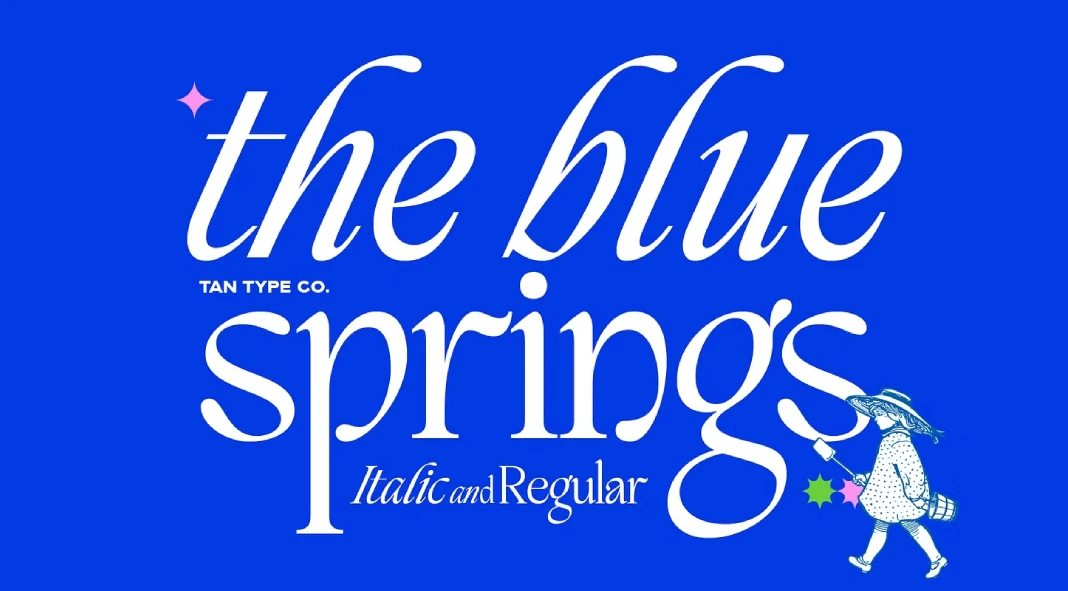
Why TAN Blue Springs is the Font You Need to Achieve Timeless Elegance
Do you want a typeface that blends classic charm with a modern edge effortlessly? If you’re searching for that perfect typeface, let’s talk about TAN Blue Springs, a font that’s been making waves in the design world. What makes it so special? It’s more than just a pretty face; it’s a versatile tool that can elevate your projects and capture attention. Get ready to explore why this font could be your next go-to choice.
What Makes TAN Blue Springs Stand Out?
This isn’t just another font; it’s a statement. Created by TanType, it masterfully balances tradition with contemporary design sensibilities. This blend makes it incredibly adaptable for a wide range of applications. So, what exactly sets this font apart from the crowd?
• Classic Yet Contemporary: It possesses a timeless appeal reminiscent of classic serifs but with subtle modern tweaks. These prevent it from feeling dated.
• Versatility is Key: With both regular and italic styles, the typeface offers flexibility for various design needs.
• Elegant Character: While refined, it avoids being sterile or bland. Instead, the font showcases a unique personality that adds character to any design.
TAN Blue Springs Font by TanType
Exploring the Design Nuances of Blue Springs
Let’s get into the specifics. TAN Blue Springs boasts carefully crafted letterforms, paying attention to detail in every curve and line. This commitment to quality is evident in its overall aesthetic.
• The Serif Details: The serifs aren’t overly dramatic but add a touch of sophistication without feeling stuffy.
• The Italic Slant: The italic version isn’t just a slanted version of the regular. It showcases unique characteristics that perfectly complement the upright style.
• Readability is Paramount: Even with its distinct personality, the font prioritizes readability. This is especially important for body text.
The Applications of TAN Blue Springs: Where Does it Shine?
The versatility of TAN Blue Springs means that you can use it in various design projects. But where does it truly excel?
• Branding: Its elegant yet approachable aesthetic makes it perfect for creating brand identities that convey sophistication and reliability.
• Editorial Design: Whether you’re designing a magazine, book, or website, this display font adds a touch of class to any layout.
• Web Design: This font looks amazing on the web too. It is easy to read and adds character to your online designs, making it a versatile choice for website typography.
• Print Materials: Business cards, brochures, invitations—the typeface elevates any printed piece with its sophisticated charm.
Why Should You Choose This Font?
In a sea of fonts, why should you specifically consider TAN Blue Springs? Because it strikes a unique balance.
• Differentiation: It allows your designs to stand out without being overly trendy or fleeting.
• Professionalism: It adds a sense of polish and credibility.
• Timelessness: You can be confident that your designs will remain stylish for years to come.
Tips for Using TAN Blue Springs Effectively
So, you’re ready to incorporate TAN Blue Springs into your designs? Here are a few tips to maximize its impact.
• Pairing Fonts: Experiment with different pairings. Consider using a simple sans-serif for body text. That will allow the font to be the star of the show as headings or titles.
• Hierarchy is Key: Use different weights and sizes to create a visual hierarchy.
• Kerning and Leading: Pay attention to the kerning and leading for optimal readability.
The Potential for Viral Success
Why does TAN Blue Springs have the potential to go viral?
• Aesthetic Appeal: Its beauty naturally attracts attention and encourages sharing on social media platforms.
• Versatile Applications: Designers can showcase its use in various projects, increasing its visibility.
• Emotional Connection: A font that evokes feelings of elegance and sophistication resonates with a broad audience.
TAN Blue Springs is a fun typeface that can transform your projects. Its blend of classic charm and modern appeal makes it a versatile choice for any designer looking to add a touch of sophistication to their work. So, are you ready to unlock the timeless elegance of this eye-catching typeface and elevate your next design?